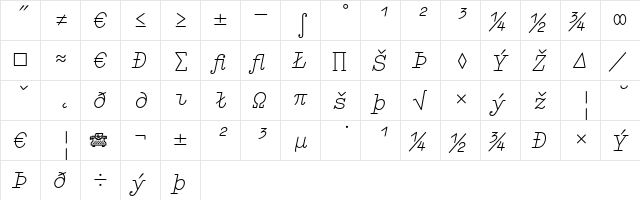
Elementa Expert Italic
Design Context for Elementa Expert Typeface
Elementa Expert is a composed and adaptable typeface that performs quietly and consistently across a wide range of design contexts. The dynamic lean of this cut emphasises speed and emphasis in any layout.
Pro Tip: Try Elementa Expert for annotation and caption copy alongside an upright companion — the contrast in angle creates a dynamic but ordered typographic system.